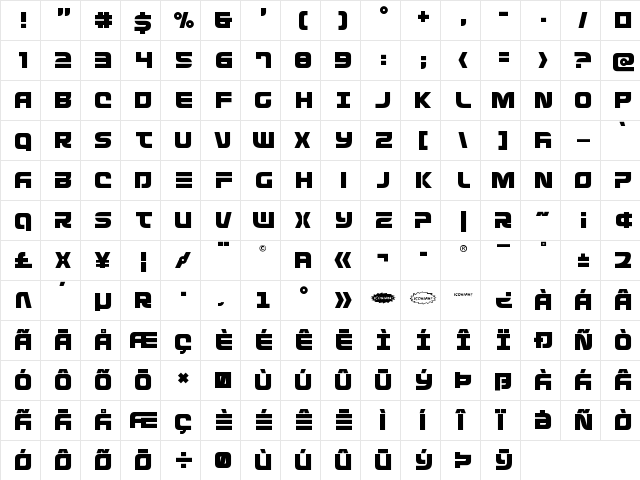
Defcon Zero Title Regular Font Preview
Defcon Zero Title Regular
Defcon Zero Title Regular Font Details
Design Context for Defcon Zero Title Typeface
Defcon Zero Title is a composed and adaptable typeface that performs quietly and consistently across a wide range of design contexts.